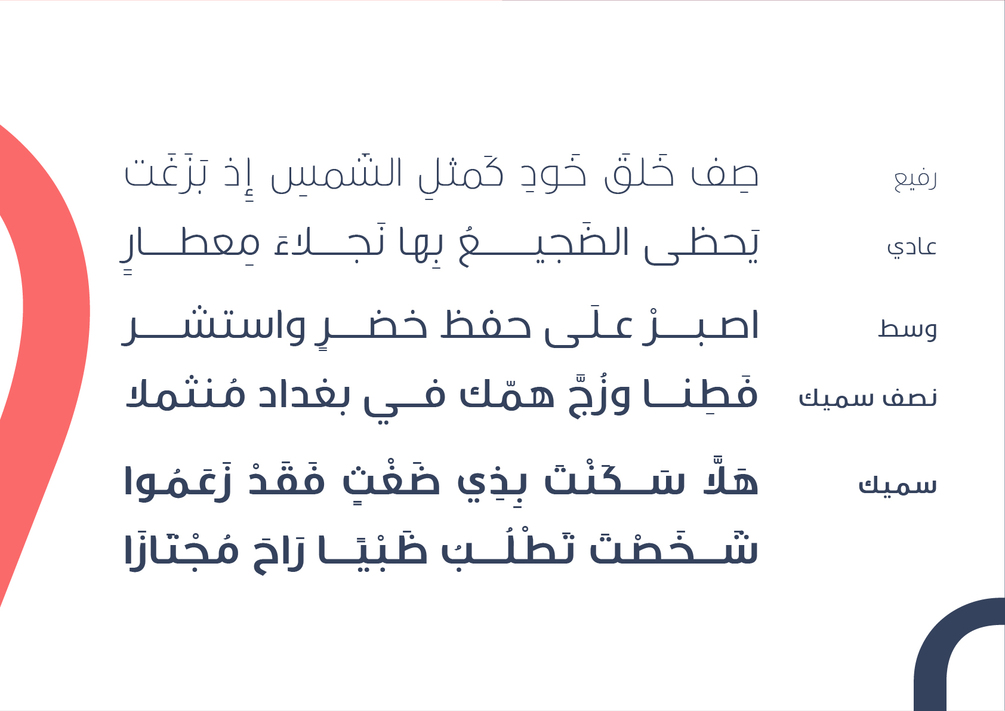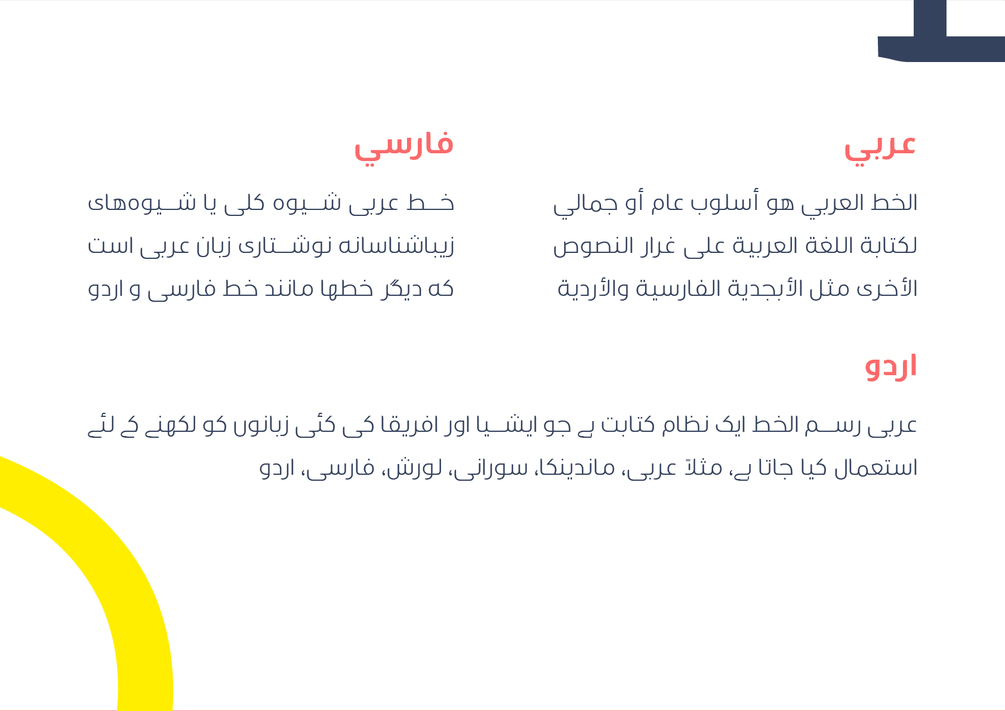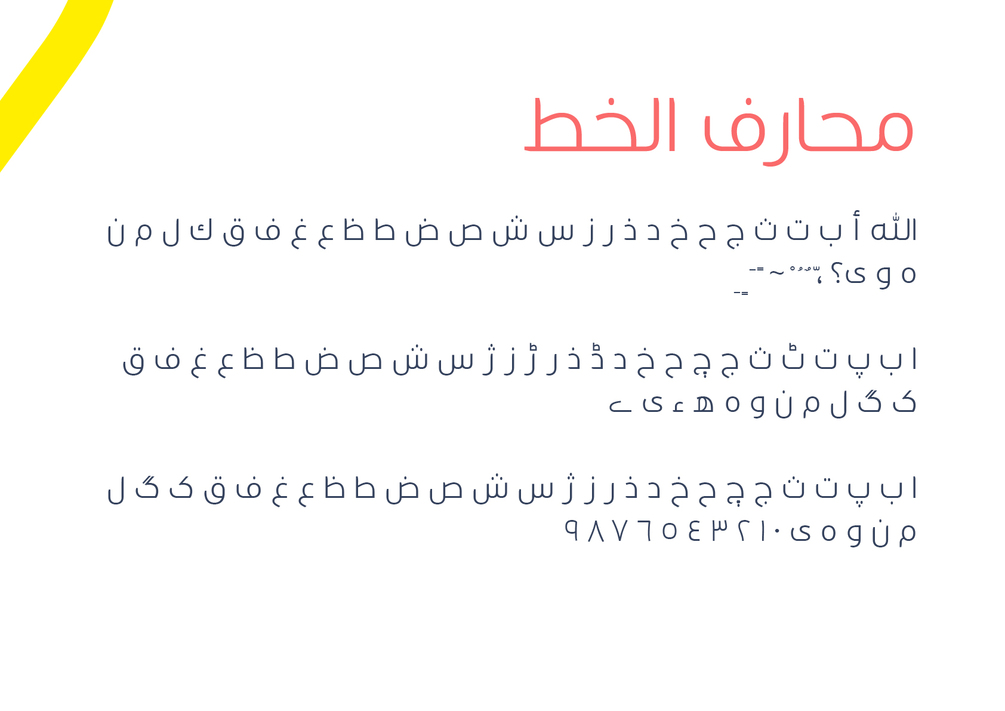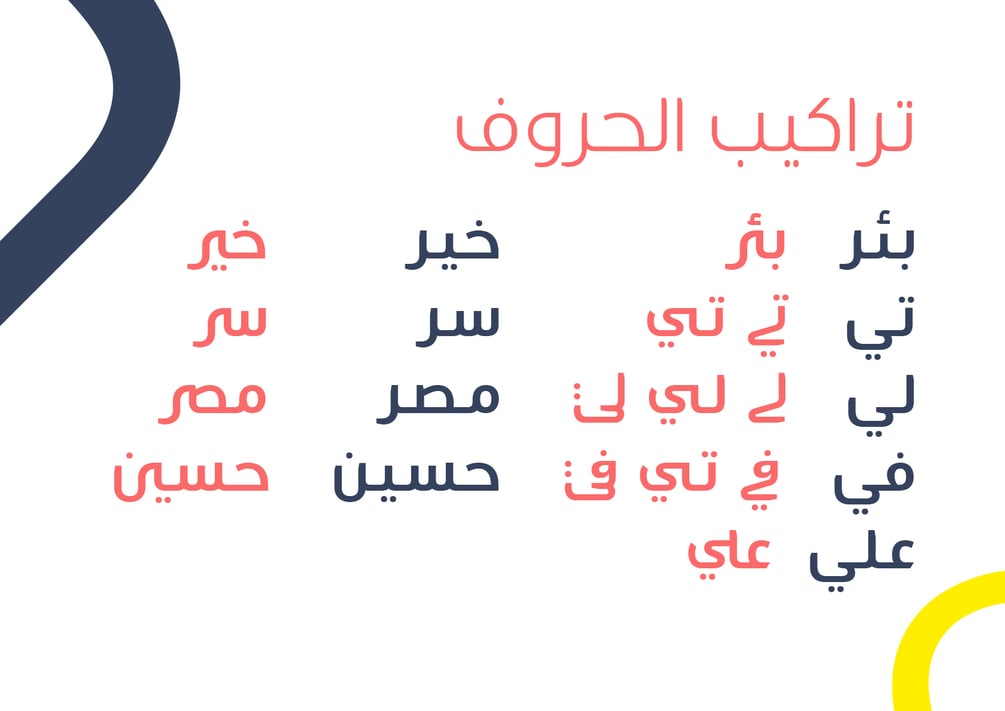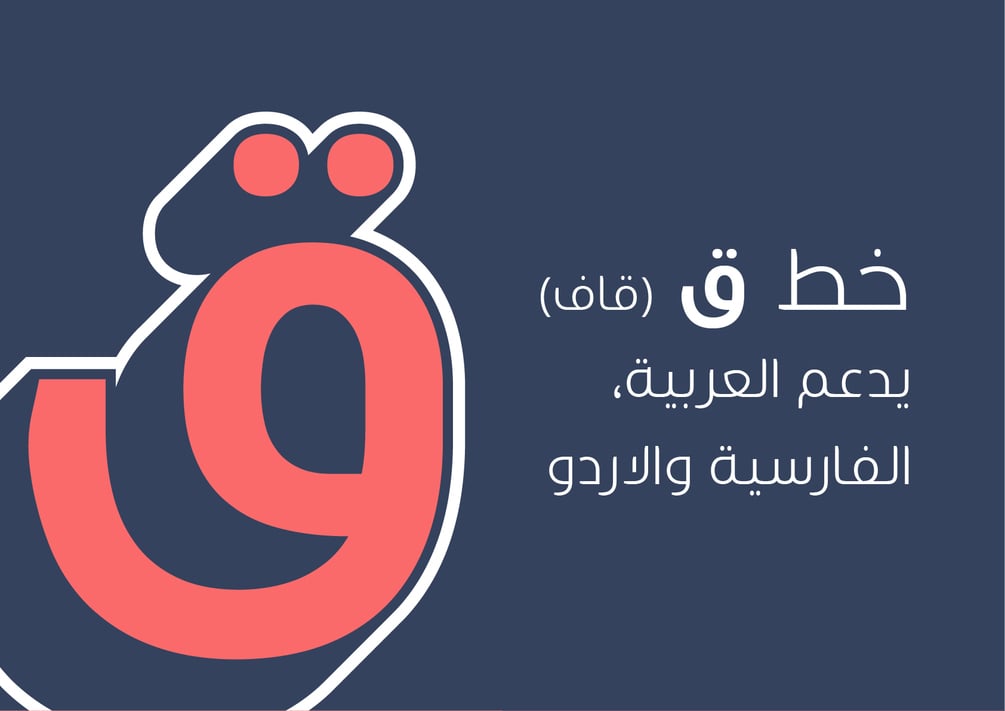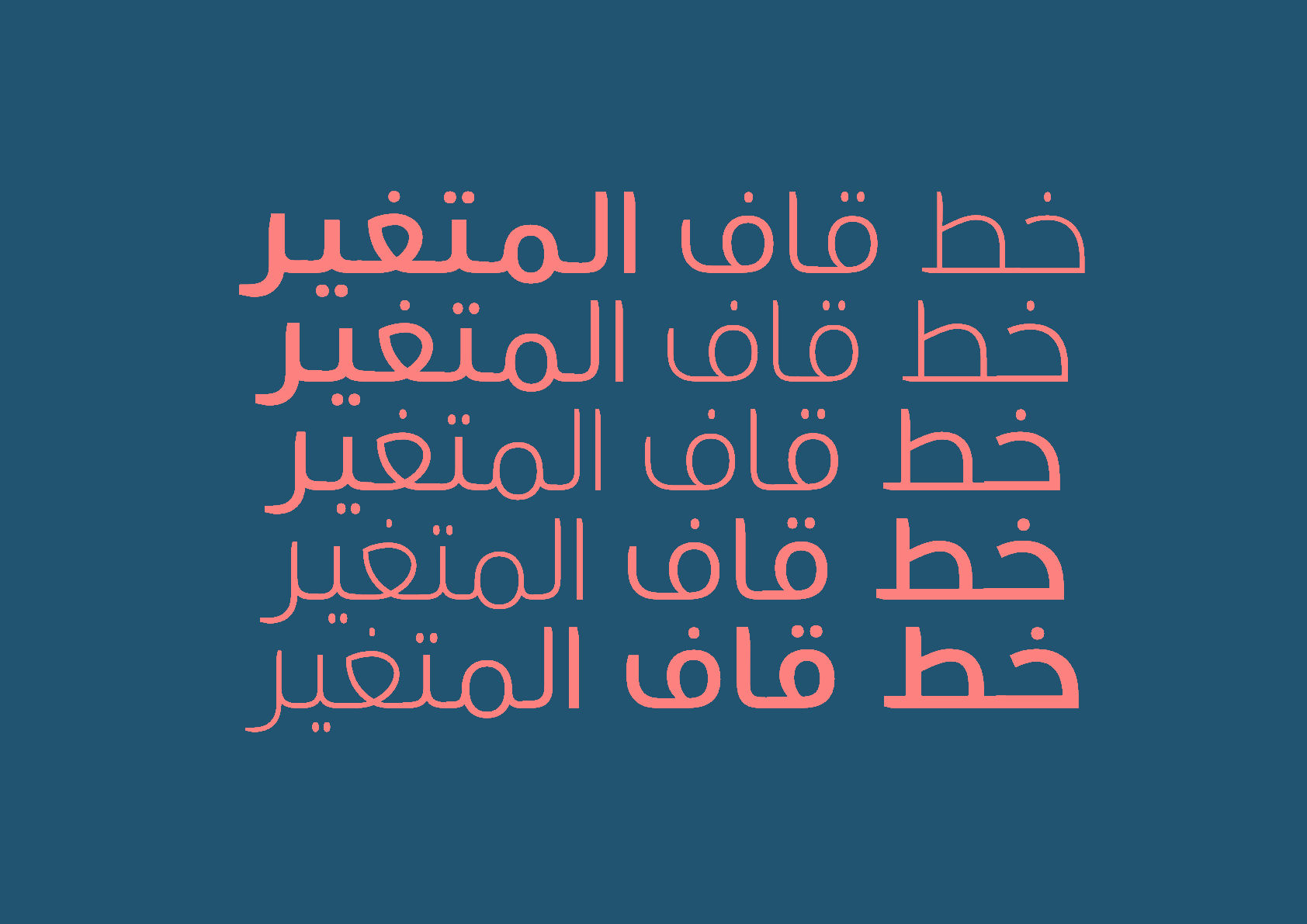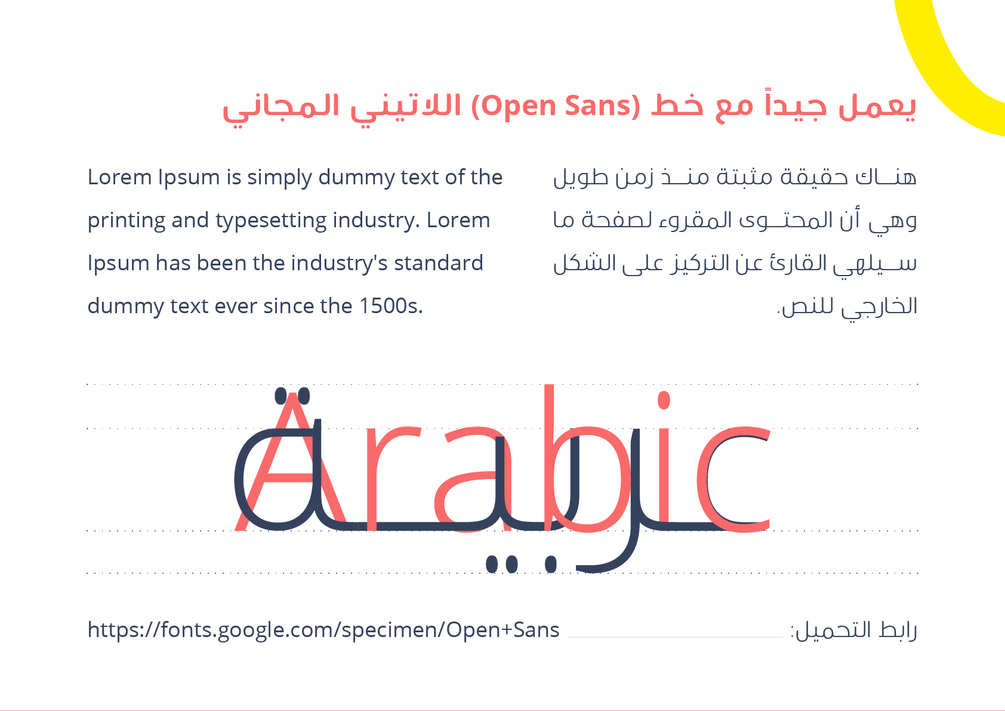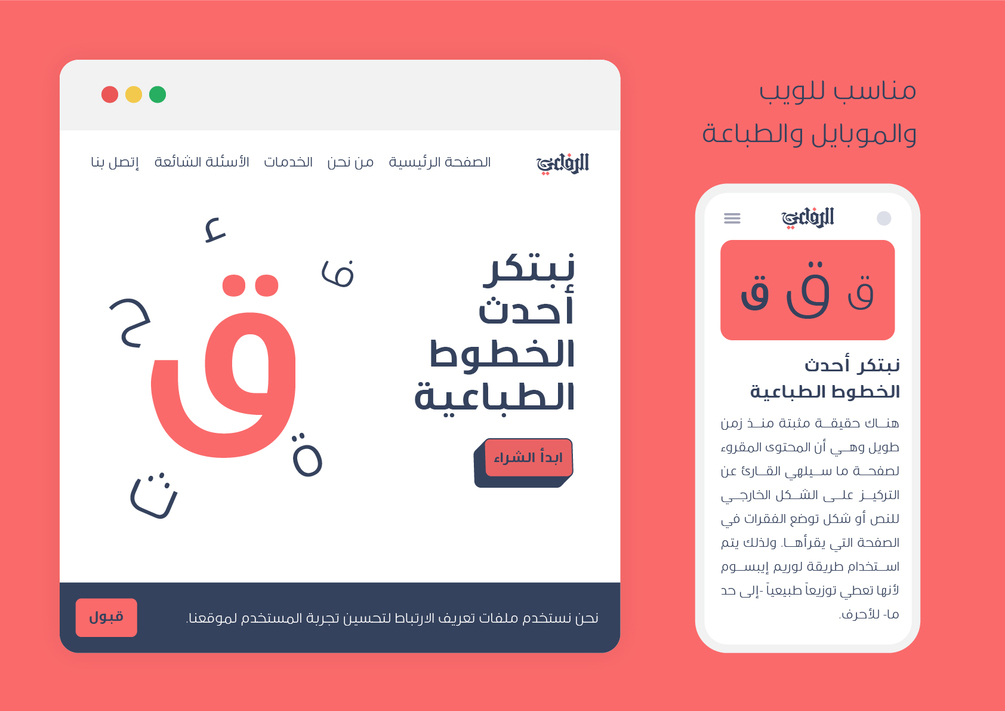
YR Qaf Arabic Font
Qaf is a new modern Arabic display font which works well on websites, mobile apps and user interfaces.
The font comes in 5 weights with support for Arabic script in 3 languages: Arabic, Farsi, and Urdu.
It also supports 3 numeral systems: Hindi, Arabic, and Farsi.
Recommended free Latin font that would be most compatible with this font is Open Sans